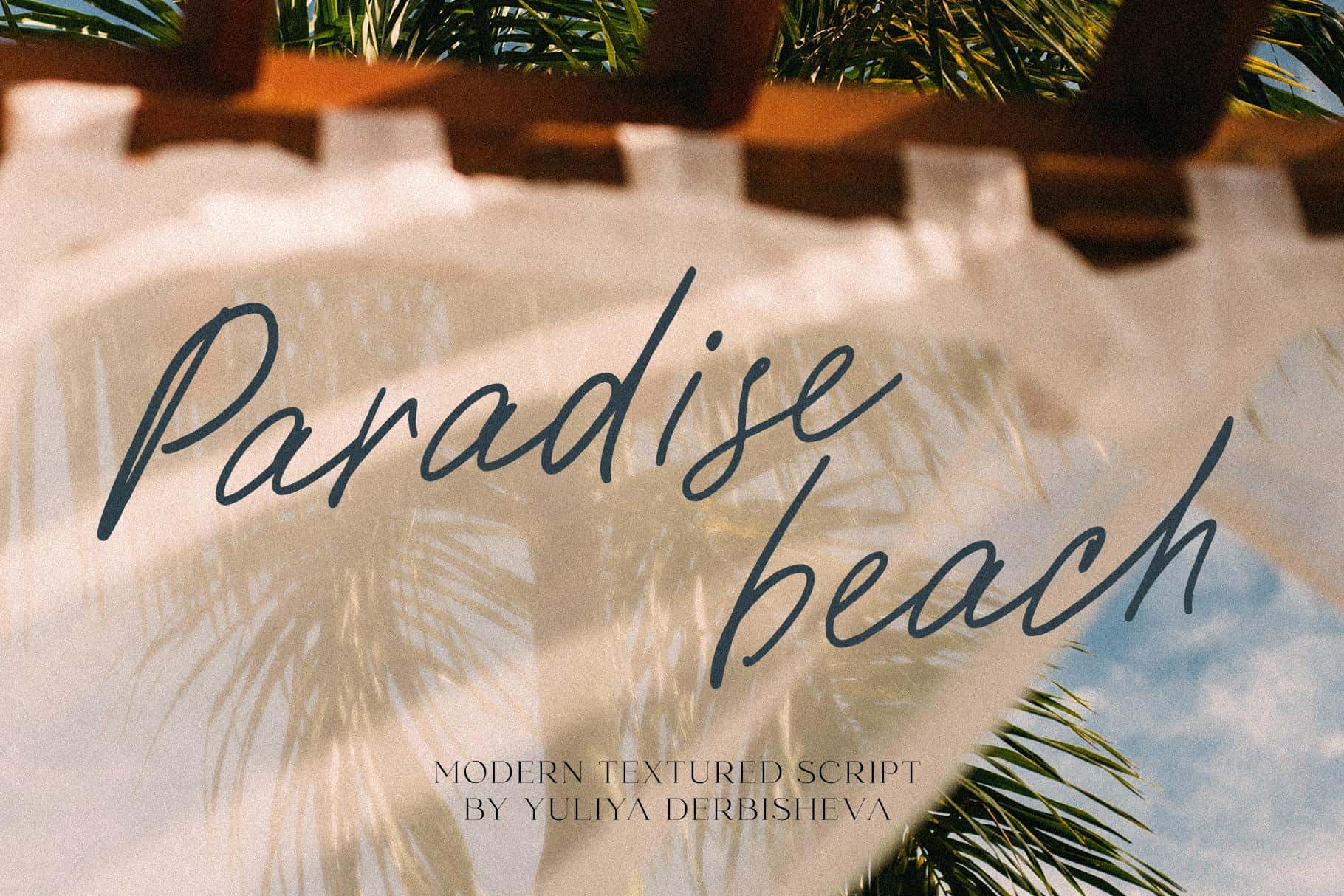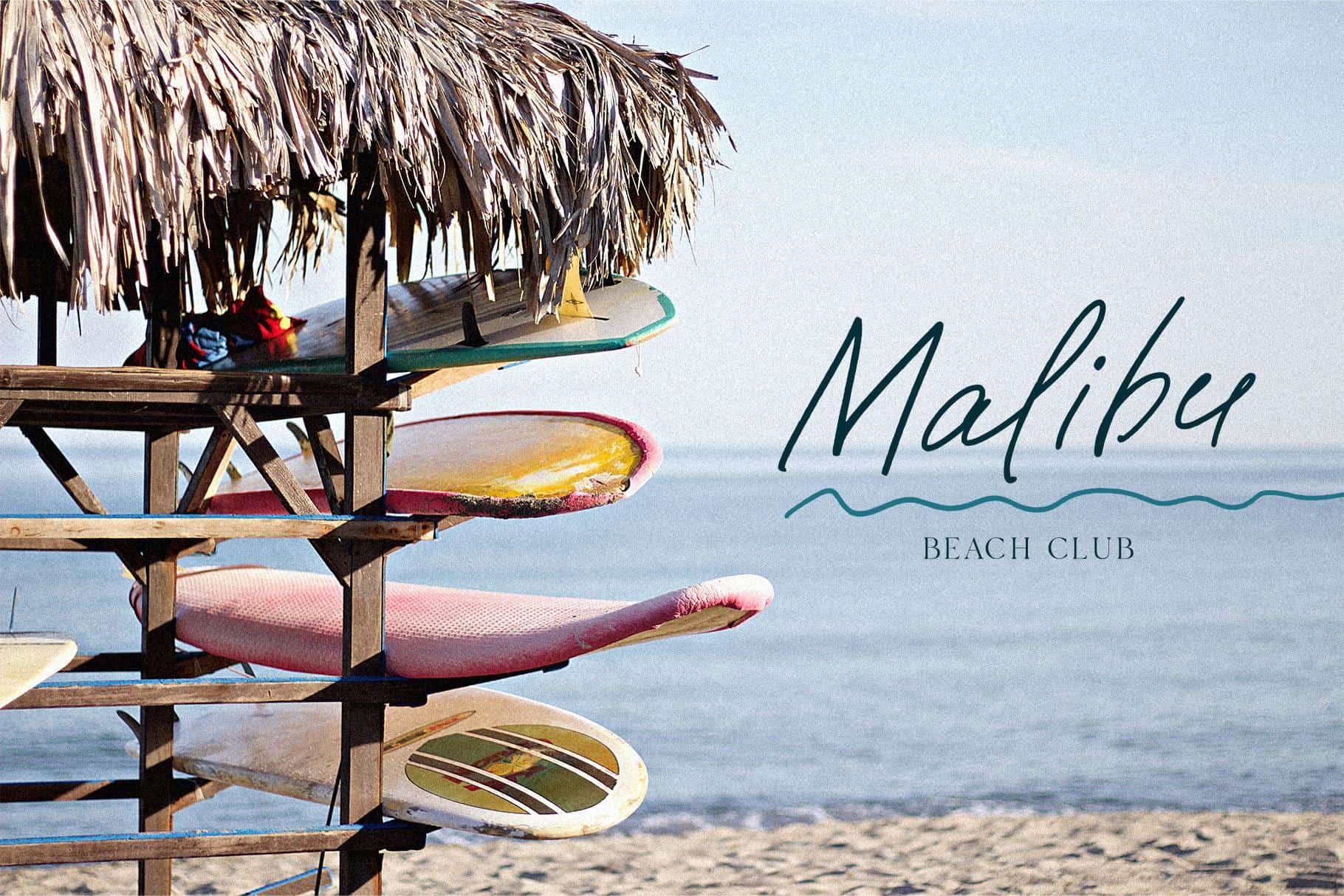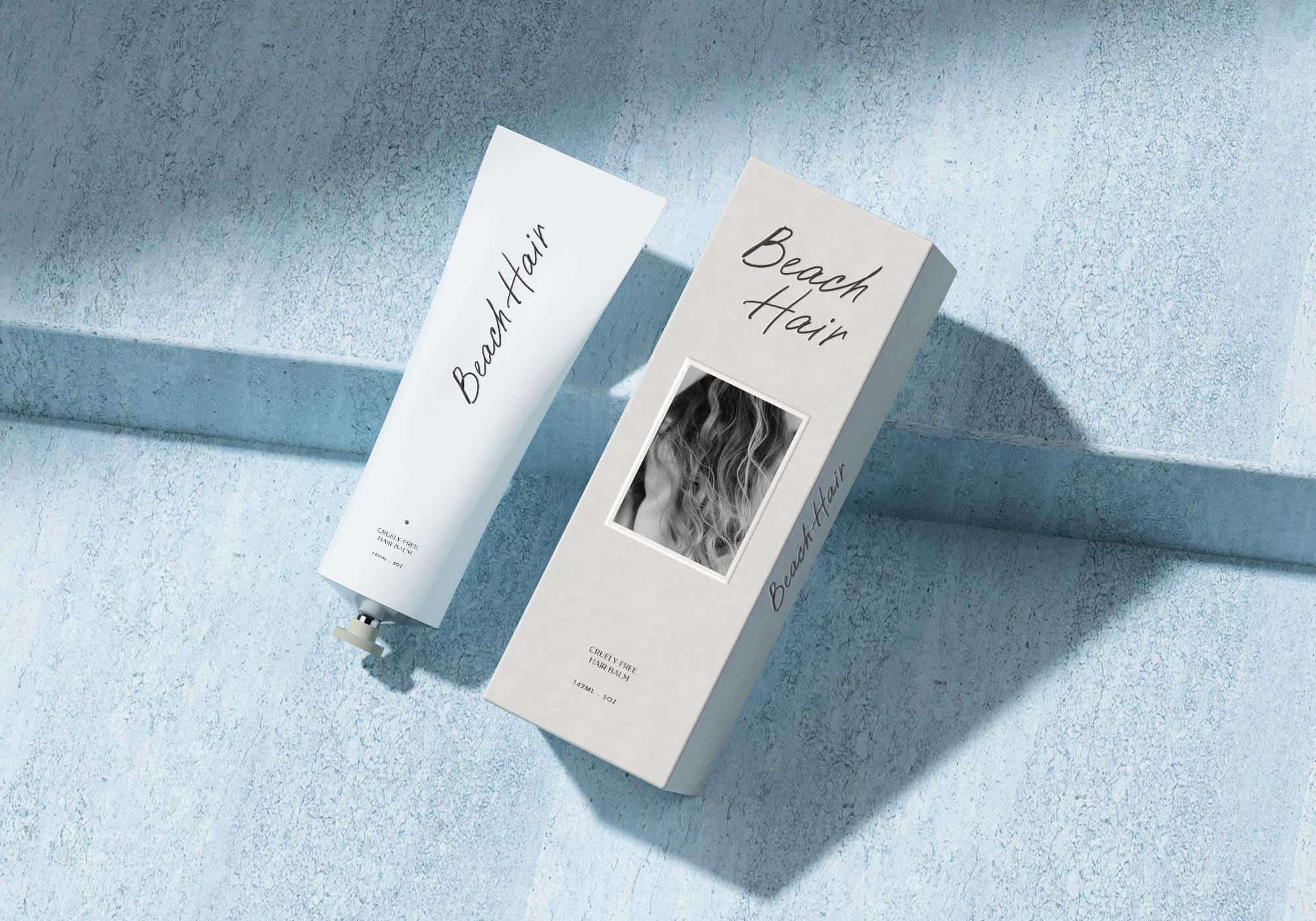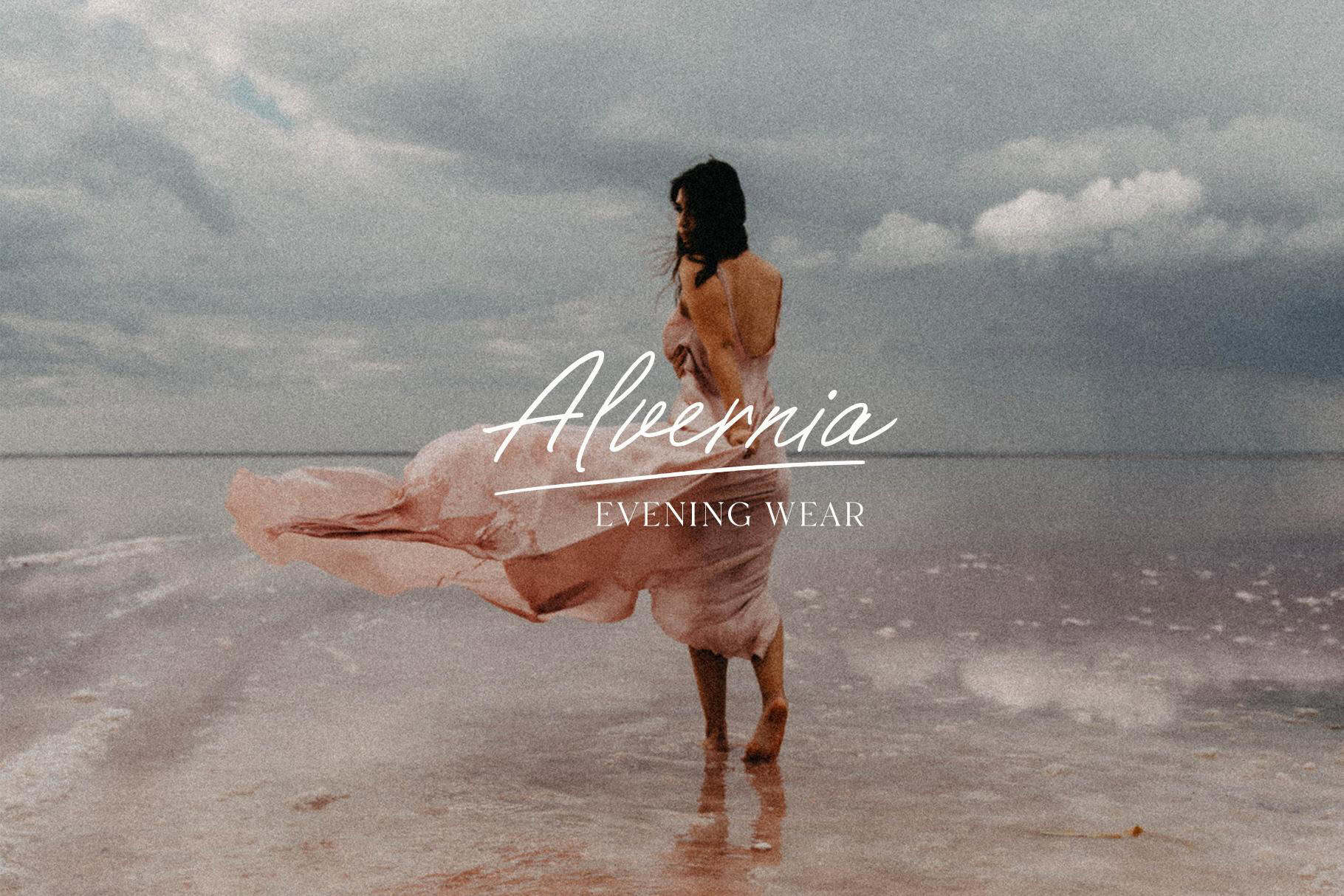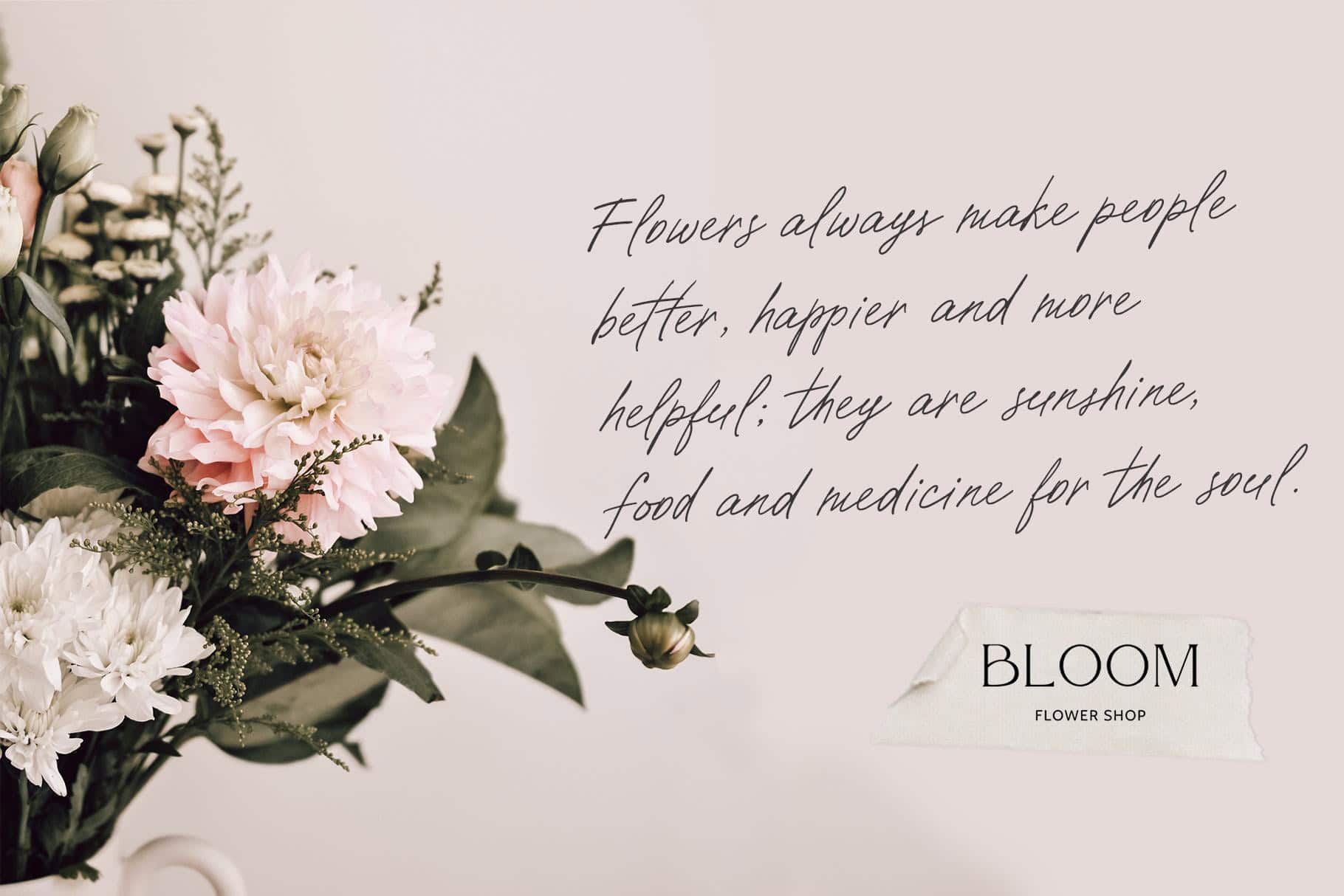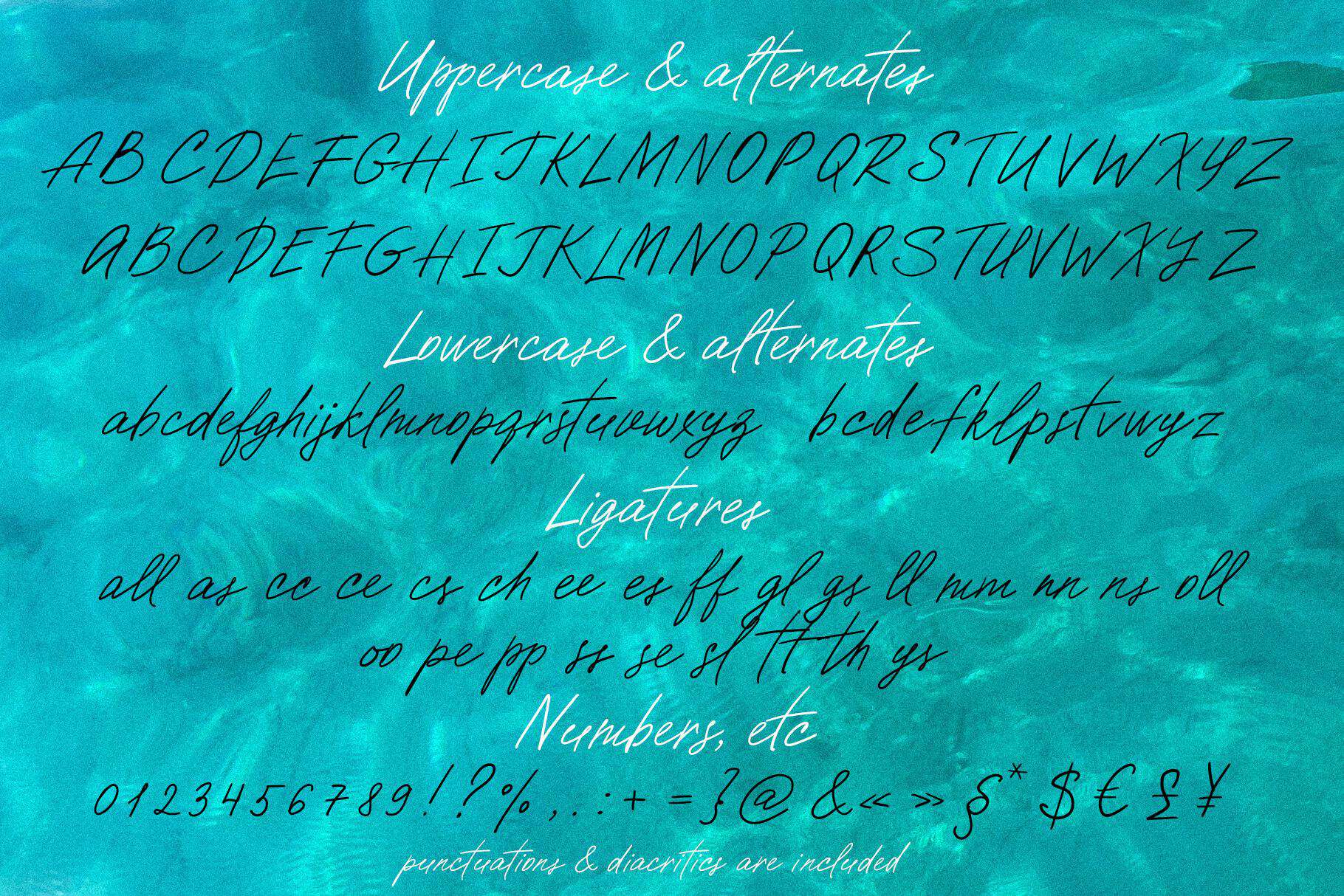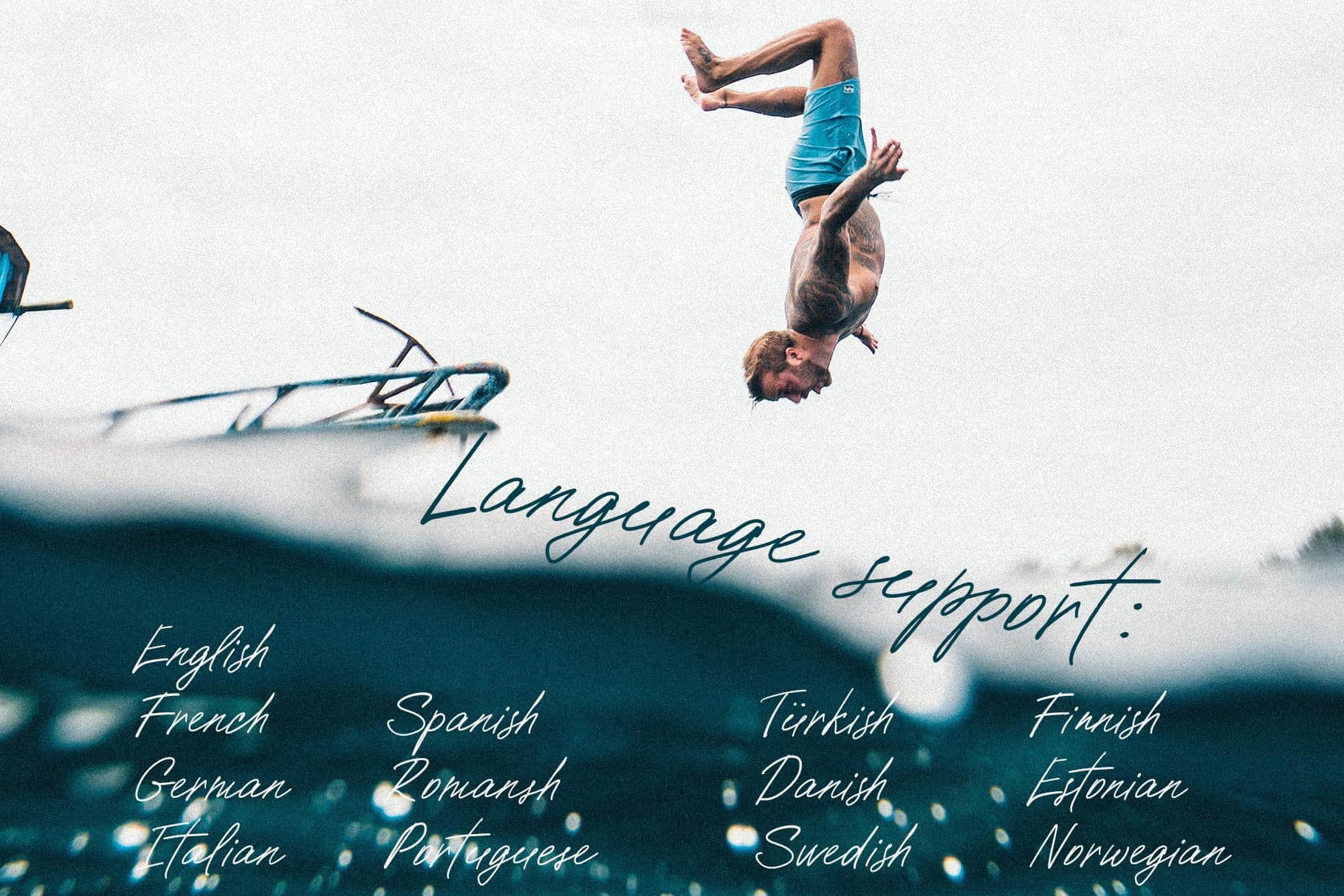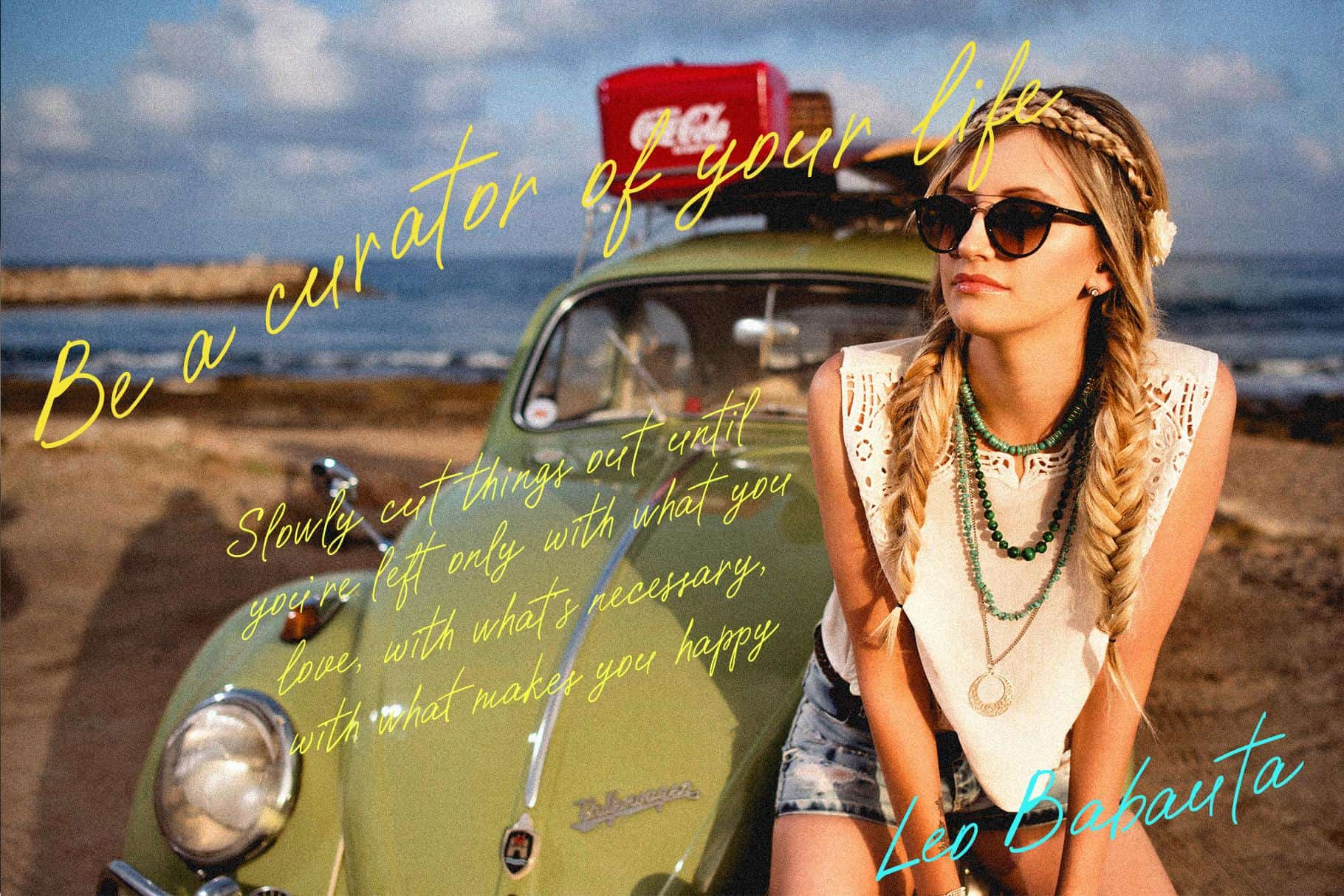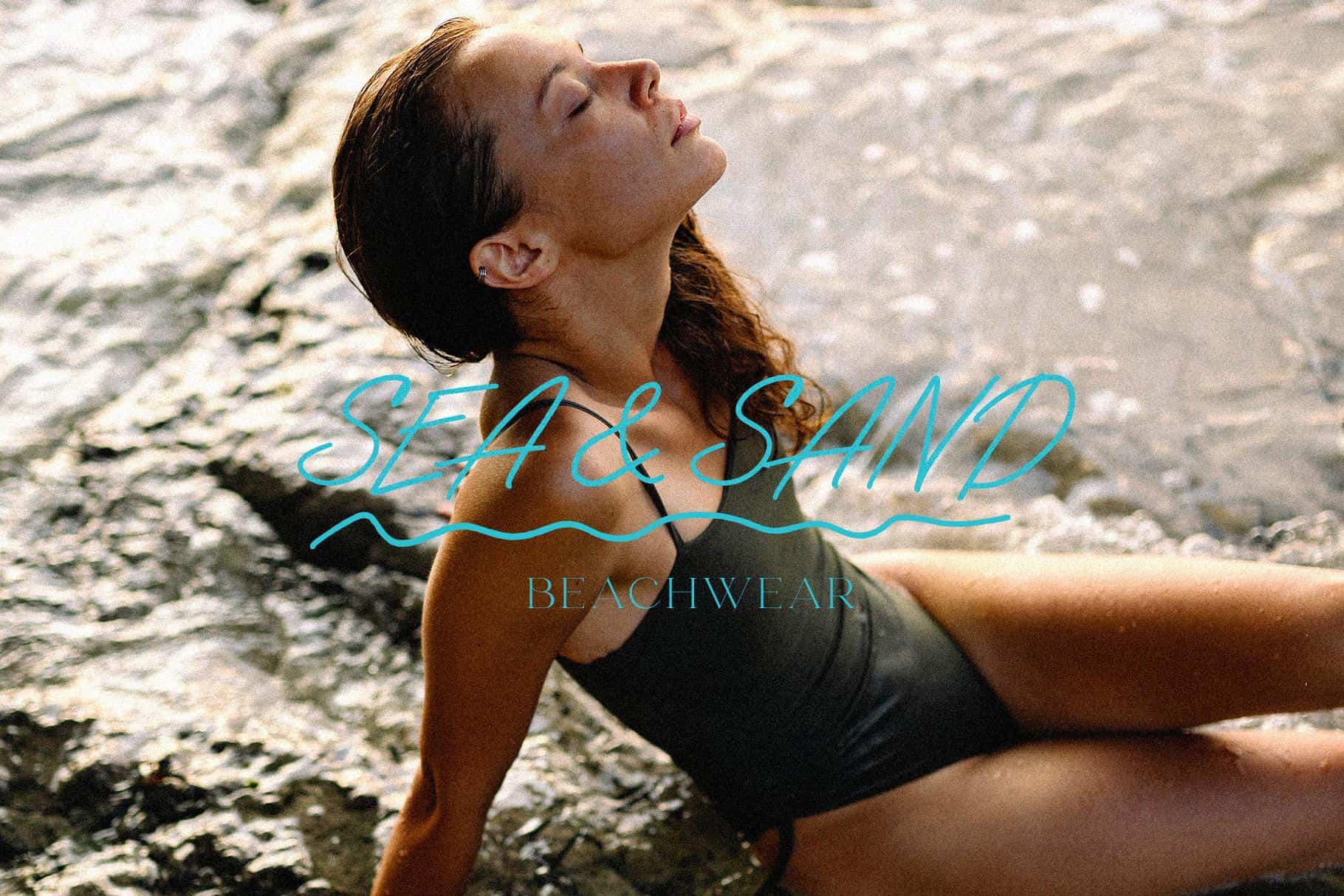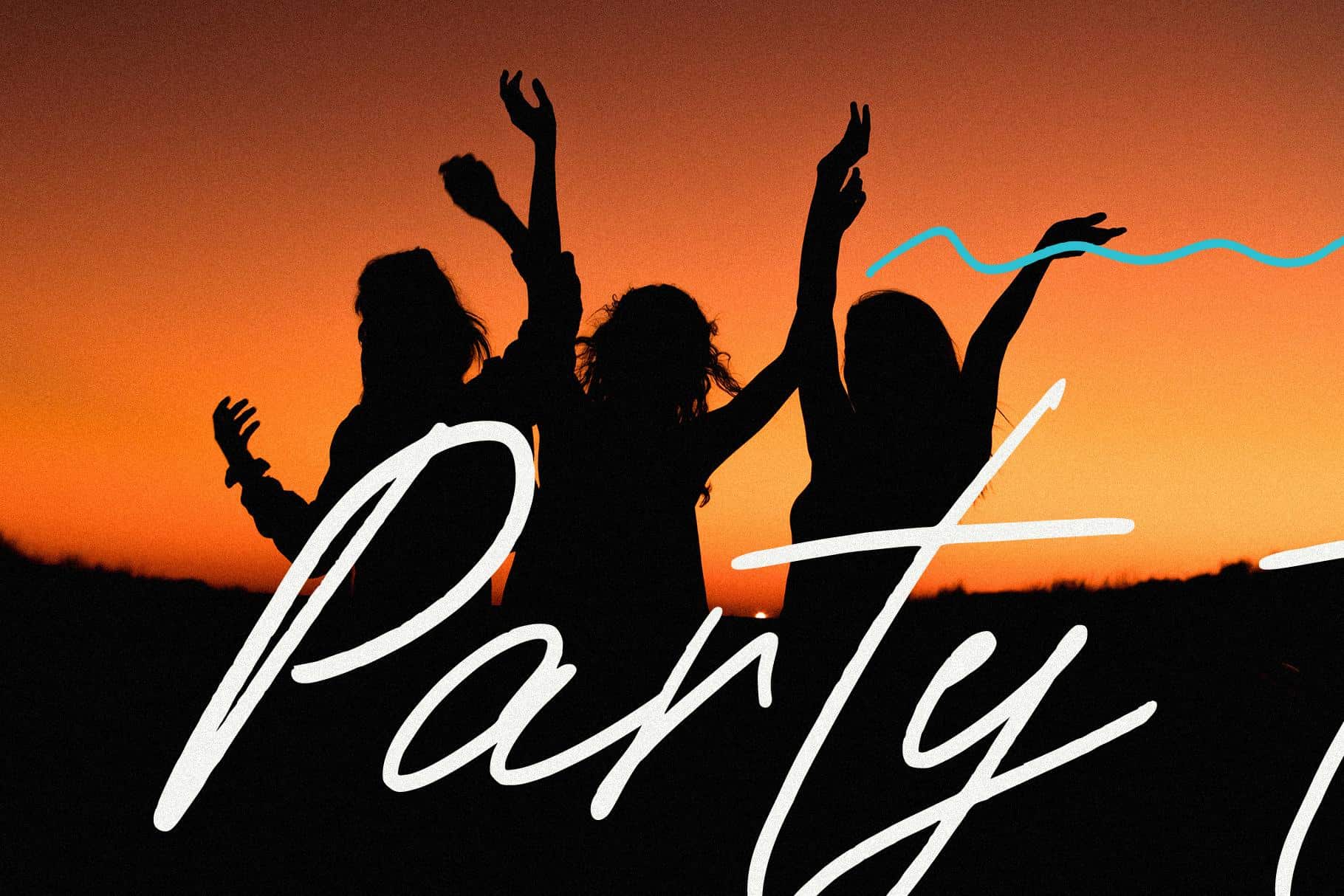
Elevate your designs with the chic Paradise Beach font
Elevate your designs with the chic Paradise Beach font. This handwritten textured script offers stylistic alternates for uppercases and lowercases, ligatures, and line illustrations, making it perfect for various themes.
Adds a unique, personal touch for:
Logo Design: Create memorable, unique logos.
Packaging: Personalize your product packaging.
Branding: Establish an elegant brand identity.
Social Media: Enhance your graphics with stylish text.
Invitations and Stationery: Design bespoke invitations and stationery.
Elevate your projects with the modern elegance of Paradise Beach. Perfect for logos, packaging, branding, and more..
Paradise beach has extensive language support, it includes English, French, German, Italian, Spanish, Portuguese, Danish, Norwegian, Swedish, Finnish, Estonian, Romansh,Turkish.